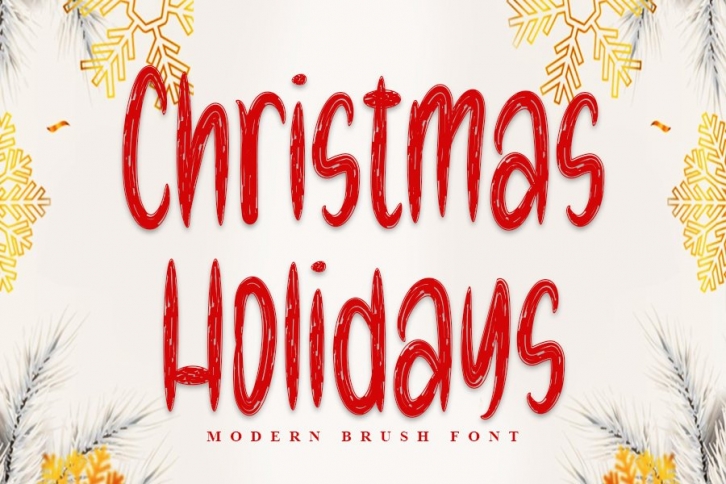
Christmas Holidays is a great font that was designed by InermediaSTUDIO. Imagine the amount of combinations you can create using this font! The archive is 18.82 MB and it was released on December 16, 2020. Christmas Holidays looks beautiful on wedding invitations, greeting cards, logos, posters, labels, t-shirt designs, logos, business cards and is perfect for use in ink or watercolor works, fashion, magazines, packaging and food menus, children's books and more!